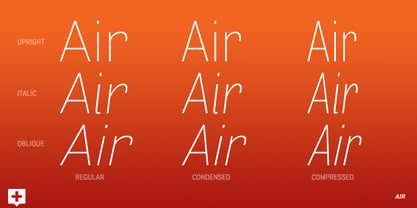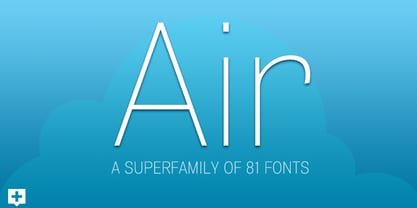
The Air Superfamily font is a modern and versatile typeface designed by Jeremy Tankard through Positype. It was created in 2001 for British Airways as part of a rebranding effort. The font was inspired by the shapes of the letters used in the British Airways logo.
It is composed of several styles, including Air Roman, Air Italic, Air Bold, and Air Bold Italic. You can make the most of its online generator tool, allowing you to transform plain text into chic and fashionable shapes with a simple copy and paste. Fivo Sans Modern font is its closest texture to this font.
One of the most notable features of this typeface is its unique and recognizable lowercase character. This feature, combined with the font’s other unique characteristics, has made it a popular choice for designers in a variety of industries.
Usage of Air Superfamily Font
This captivating texture finds its place in various applications, with notable use being in branding and marketing materials, especially for businesses in the travel and aviation sectors. The font’s distinctive features and contemporary appearance aid companies in expressing innovation and forward-looking ideals.
It is well-suited for use in editorial design and is a great choice for magazines, newspapers, and other print publications. The font’s wide range of styles, including both serif and sans-serif options, make it easy to create a cohesive design across different sections of a publication.
By making a strong pairing of this texture with News Gothic BT Roman Condensed font you will notice more extraordinary results. It is also convincing for Adobe Illustrator.
| Name | Air Superfamily Font |
| Designer | Jeremy Tankard |
| Style | Sans Serif |
What is the type of Air Superfamily Font?
This font has a neat and eye-catching texture. Its clean texture will make your project look more attractive to visitors. This font comes in various types of styles and weights.
Is the Air Superfamily typeface a good texture?
Yes, This texture is considered a good font by many designers due to its unique and recognizable characteristics, modern look, and versatility.